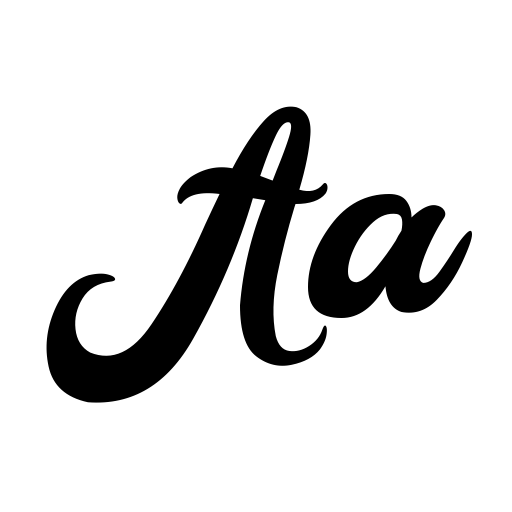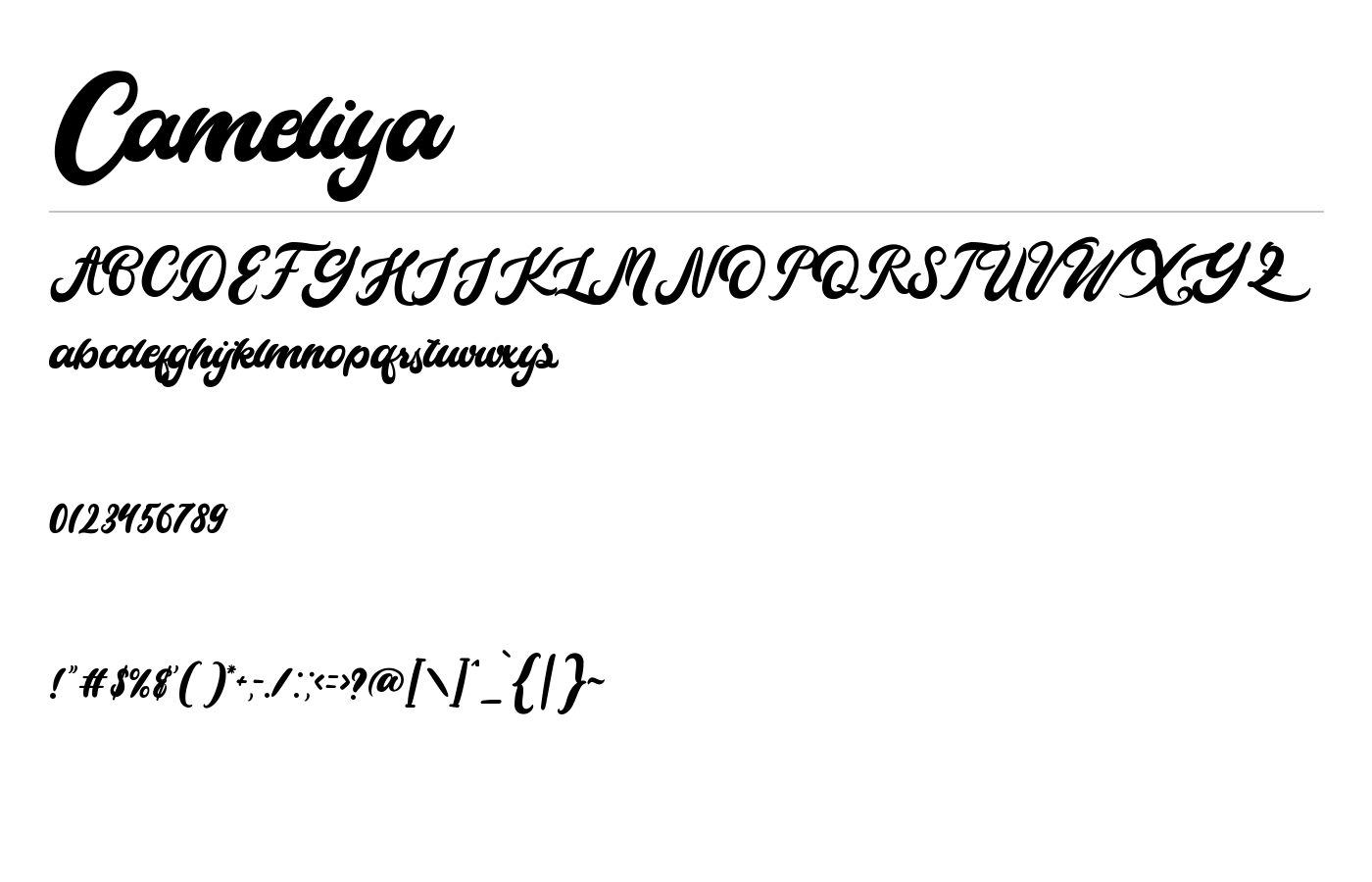
Cameliya is a bold, cursive script font that combines elegance with a playful charm, featuring smooth, flowing strokes and distinctive swashes. Its rounded, connected letterforms and moderate contrast create a friendly yet stylish feel, making it ideal for branding, invitations, and headers where a touch of personality and warmth is desired. This font shines in creative and decorative uses, adding sophistication and a handcrafted vibe to any design.
Cameliya Font
About Cameliya Font